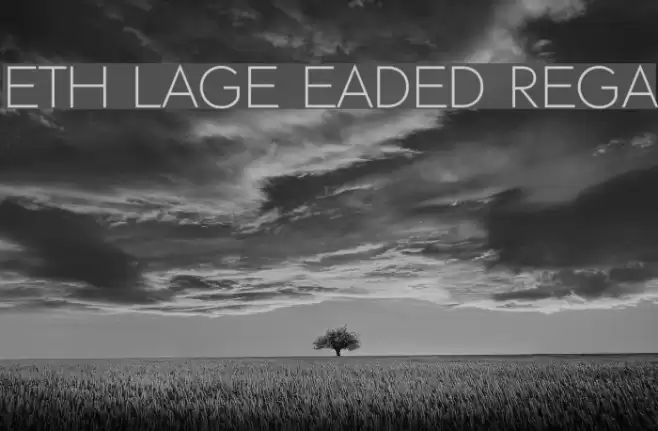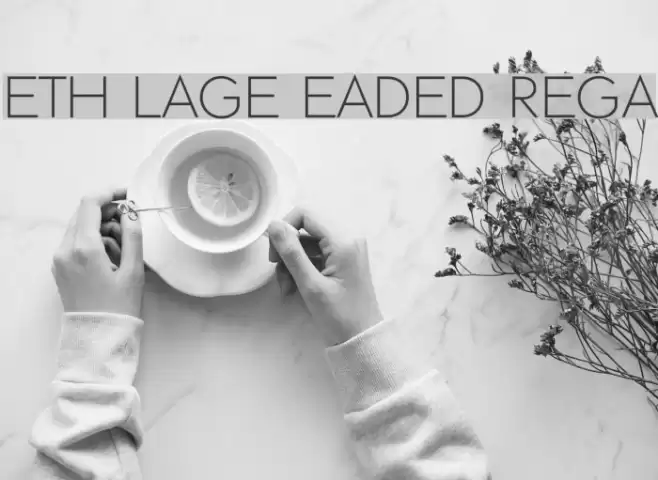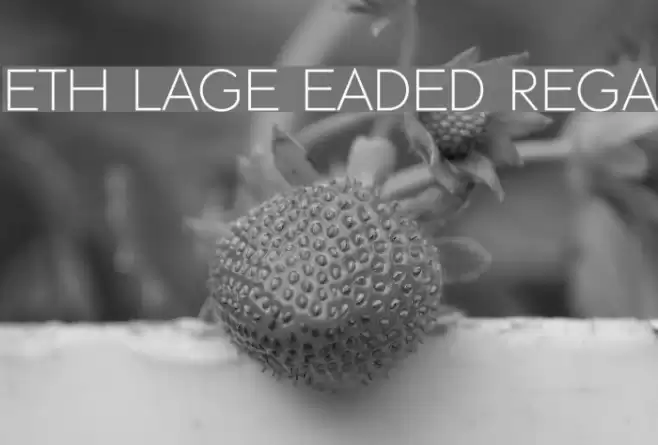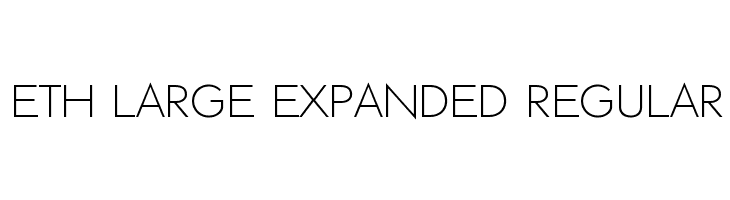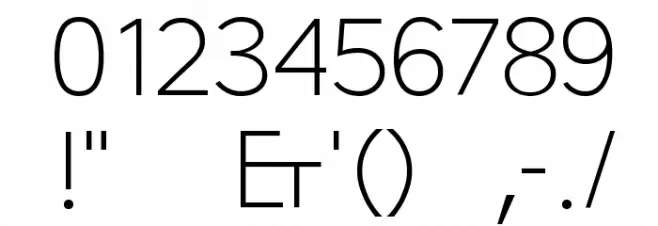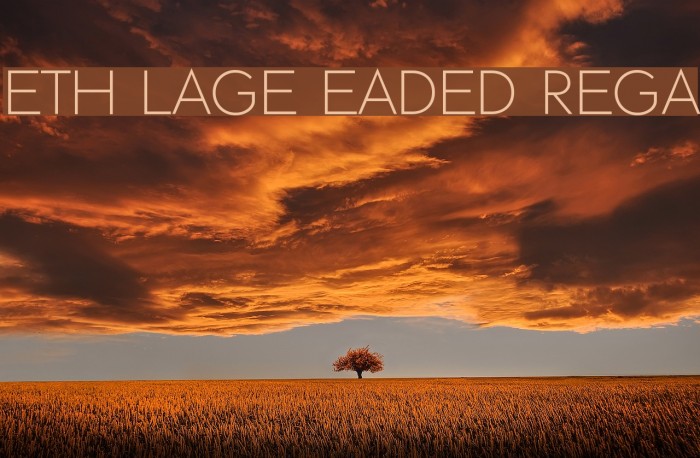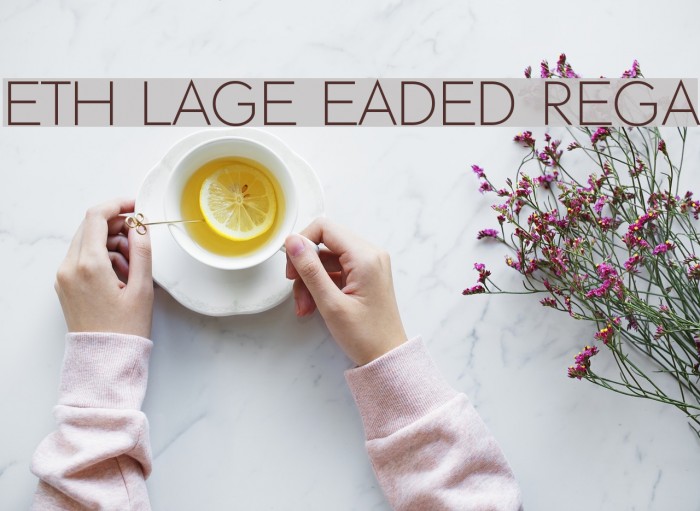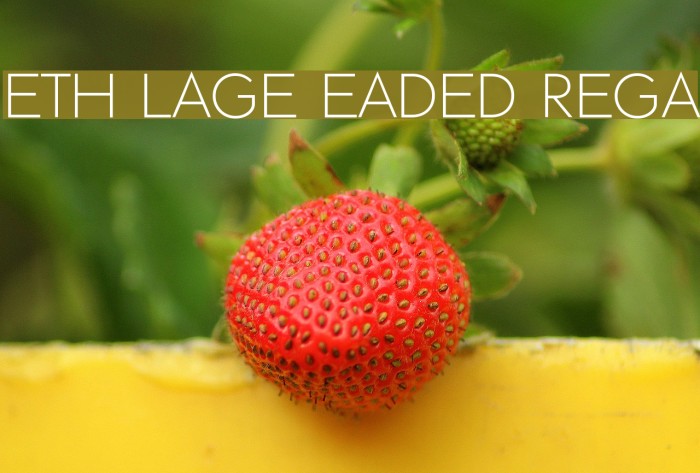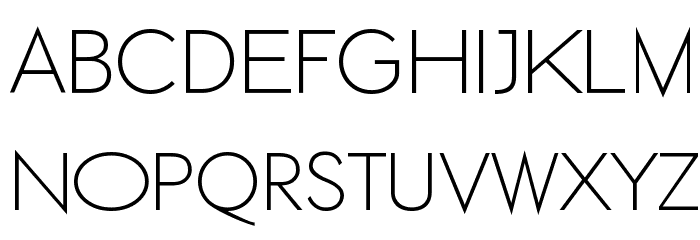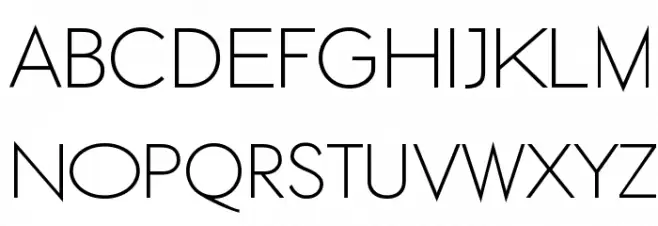
ETH Large Expanded Regular Font
ETH Large Expanded Regular Description
This font features a clean and modern design with a sans-serif style. The characters are evenly spaced and have a consistent stroke width, giving it a sleek and professional appearance. The uppercase and lowercase letters are well-proportioned, and the numerals are clear and easy to read. The special characters are distinct and maintain the overall aesthetic of the font. Its expanded width allows for excellent readability, making it suitable for various design applications.
A modern, sans-serif font with expanded width and consistent stroke width from Uncategorized fonts.
- Proposed Projects: Ideal for branding, advertising, web design, and editorial projects where clarity and modernity are essential.